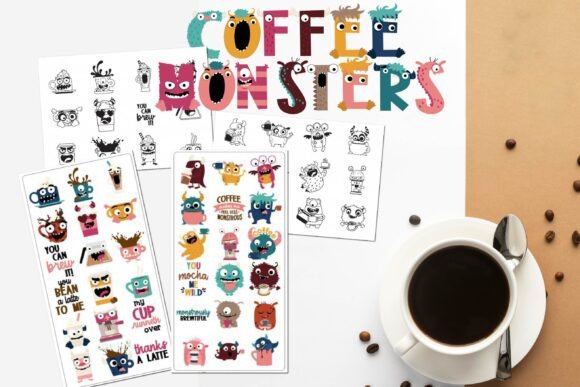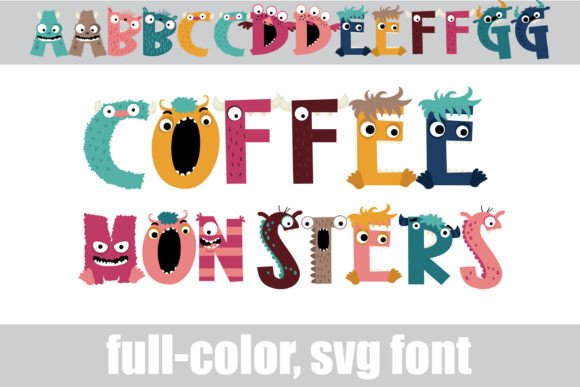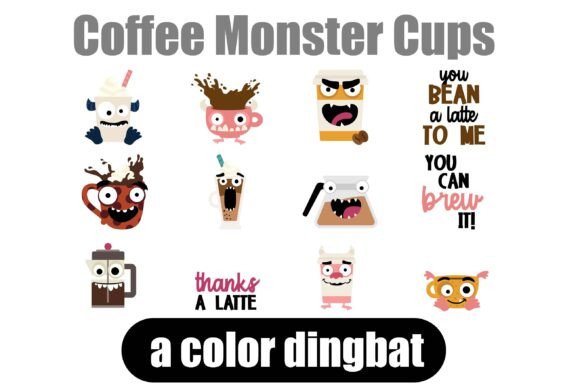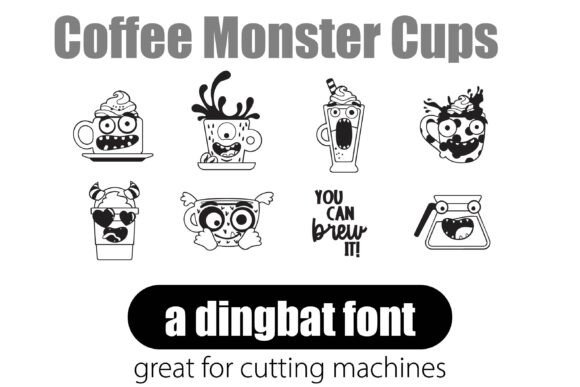
Coffee Monsters Font
About the Coffee Monsters Font
Experience the unique personality of Coffee Monsters Font, a font designed for impact. Coffee Monsters! This font bundle features brightly-colored coffee-loving monsters and mugs. This bundle features 1 full-color font, with an alt case of additional colors of each letter that you can access through your system or Silhouette’s glyph map, 2 full-color dingbats, and 2 regular dingbats.